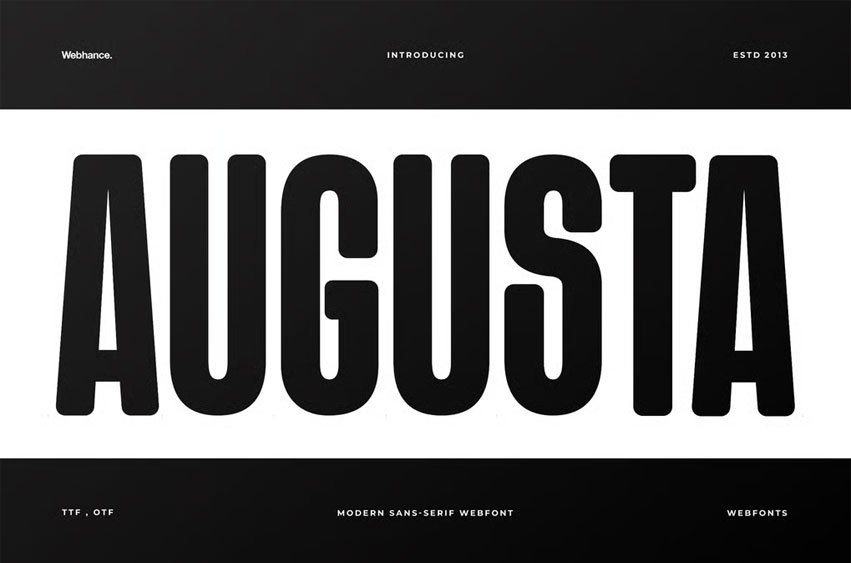
Augusta Font is a bold and impactful typeface designed to command attention and enhance your designs. With its heavy-looking appearance, solid stems, and striking elements, August Sans exudes strength and confidence, making your projects stand out effortlessly.
Featuring a comprehensive set of uppercase and lowercase letters, along with numbers and symbols, August Sans offers versatility for a wide range of design applications.
Whether you’re working on modern display and web designs, creating memorable branding and logos, designing attention-grabbing posters, or crafting engaging social media graphics, this font delivers the boldness and impact your projects demand.
Embrace the power of August Sans to make a statement and leave a lasting impression on your audience. With its bold aesthetic and eye-catching design elements, August Sans is the perfect choice to bring your creative vision to life with style and confidence.